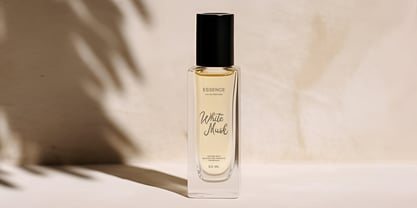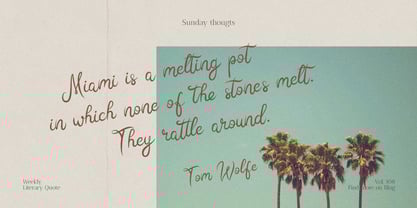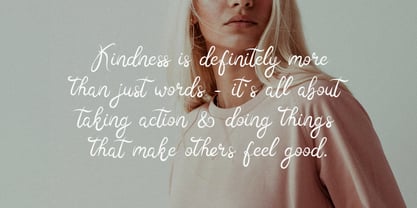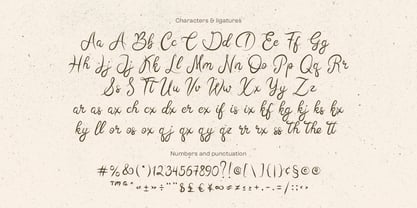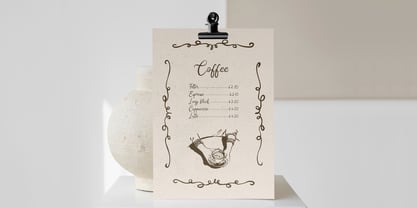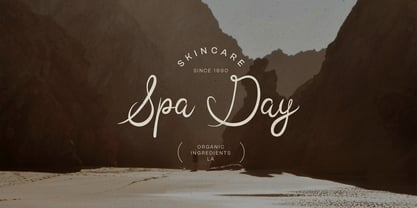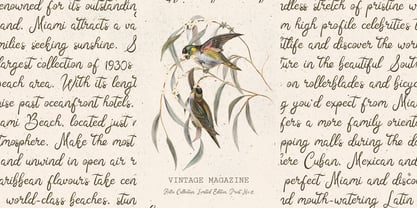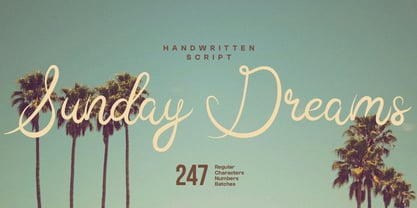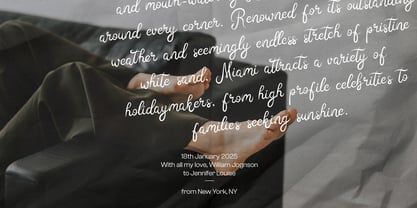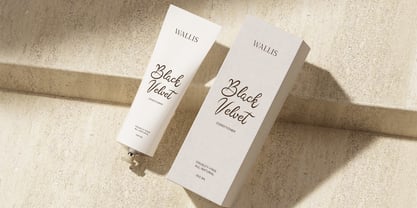
Sunday Dreams
by Tetiana Bunakova
The Sunday Dreams Font Family was designed by Tetiana Bunakova and published by Tetiana Bunakova. Sunday Dreams contains 1 styles. More about this family
Welcome natural looking handwritten Sunday Dreams script with opentype ligatures for your next design project. Perfect for business and personal purposes. Create packaging design, brand identity, art posters, invitations, restaurant menu and more.